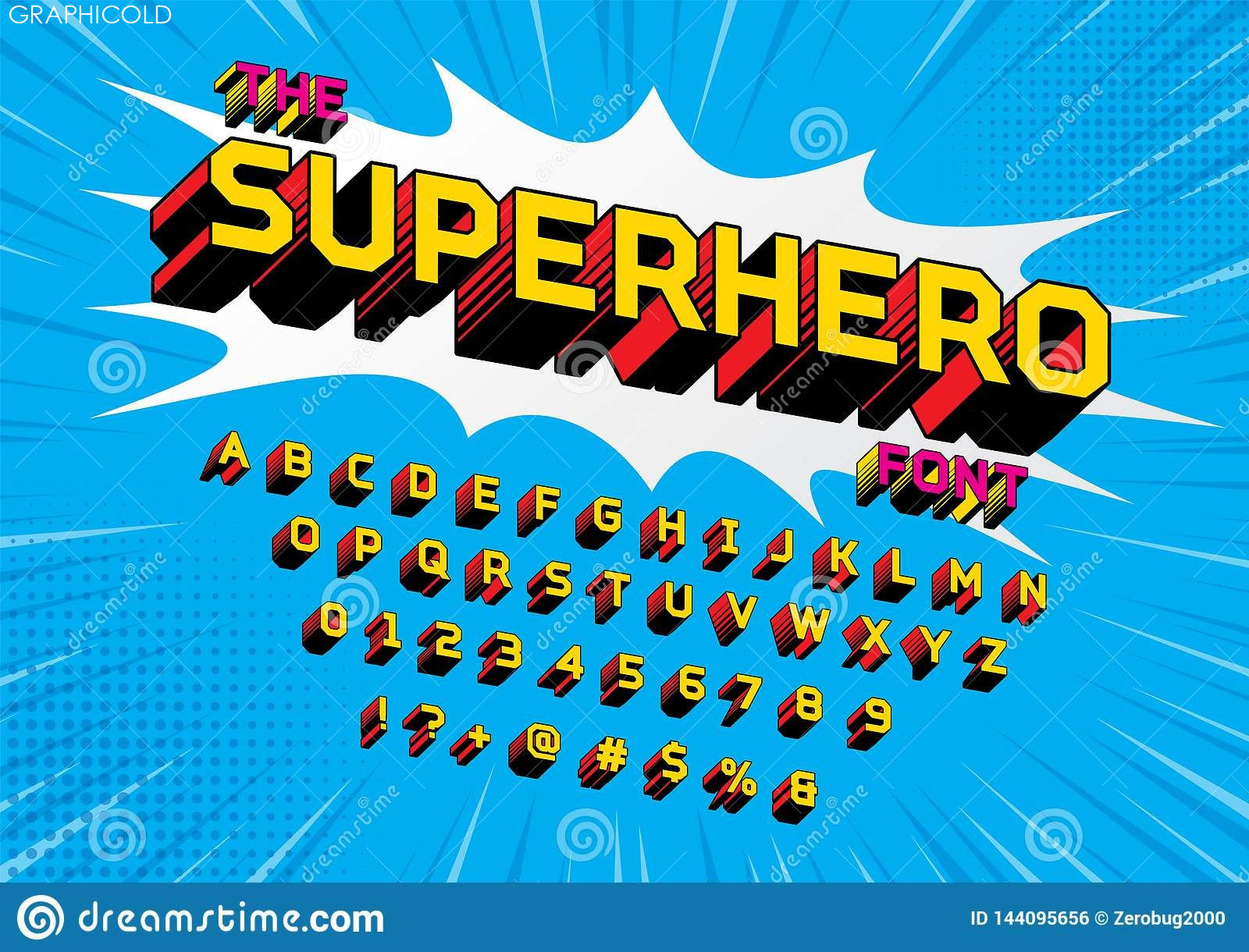
Unleashing Superpower: The Impact Of Superhero Fonts
Title: 10 superhero fonts That Will Bring Your Illustrations to Life!
Introduction:
When it comes to creating stunning illustrations, the right font can make a world of difference. Every superhero deserves a font that embodies their power, valor, and unique personality. In this article, we’ll explore ten superhero fonts that are sure to add that extra oomph to your illustrations. So, grab your cape and get ready to dive into the exciting world of superhero typography!
1. The Mighty Avenger Font:
Assemble your illustrations with the Mighty Avenger font, inspired by the iconic Avengers team. This bold and dynamic font captures the superhero spirit perfectly. With its solid lines and strong presence, it’s ideal for depicting the heroic adventures of Earth’s mightiest heroes.
2. Dark Knight Typeface:
For illustrations with a darker, brooding atmosphere, the Dark Knight Typeface is a must-have. Inspired by the mysterious persona of Batman, it conveys a sense of vigilance and strength. Perfect for bringing Gotham City to life on your canvas!
3. Marvelous Typeface:
Embrace the vibrant world of Marvel comics with the Marvelous Typeface. This font showcases the comic book aesthetic and adds a playful touch to your superhero illustrations. It’s ideal for capturing the energy and excitement of Marvel superheroes like Spider-Man, Iron Man, and Captain America.
4. Superpower Font:
Unleash your inner superhero with the Superpower Font. This font is all about bold, eye-catching letters that emit a sense of invincibility. Its strong presence is perfect for illustrating characters with extraordinary powers and abilities.
5. Amazon Princess Font:
Channel the strength, grace, and beauty of Wonder Woman with the Amazon Princess Font. Inspired by the iconic superheroine, this font combines elegance with a touch of fierceness. It’s the perfect choice for illustrating empowered female superheroes.
6. X-Men Font:
Become a mutant illustrator with the X-Men Font. Inspired by the popular X-Men franchise, this font exudes a rebellious and edgy vibe. Ideal for illustrating mutants with extraordinary abilities and exploring themes of evolution and equality.
7. Amazing Spider Font:
Spin a web of creativity with the Amazing Spider Font. Inspired by the friendly neighborhood superhero, Spider-Man, this font captures the agility and playfulness of the iconic character. It’s perfect for illustrating Spider-Man’s acrobatic maneuvers and witty banter.
8. Gotham City Typeface:
Bring the Gotham City skyline to life with the Gotham City Typeface. Inspired by the noir aesthetics of Batman’s hometown, this font creates a moody atmosphere and adds a touch of mystery to your illustrations. Ideal for capturing the dark and gritty side of the Batman universe.
9. Incredibles Font:
Supercharge your illustrations with the Incredibles Font. Inspired by the beloved Pixar heroes, this font radiates fun and adventure. Perfect for illustrating a family of superheroes and their extraordinary escapades.
10. Heroic Sketch Typeface:
Embrace the raw, hand-drawn charm with the Heroic Sketch Typeface. This font adds an authentic touch to your illustrations, giving them a gritty and spontaneous feel. Ideal for depicting street-level heroes and their urban adventures.
Conclusion:
Choosing the right superhero font for your illustrations can elevate them to a whole new level. These ten fonts offer a range of options, from bold and powerful to playful and stylish. So, whether you’re illustrating epic battles or the day-to-day heroics of your characters, these fonts will bring out the superhero essence in your work. Get ready to inspire and captivate your audience with typography that packs a punch!